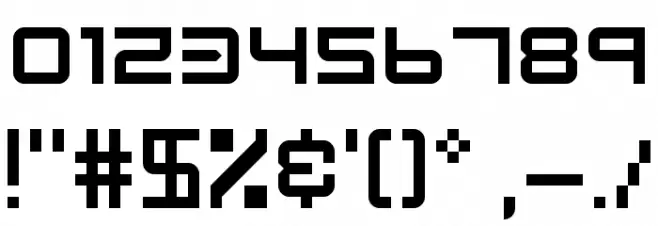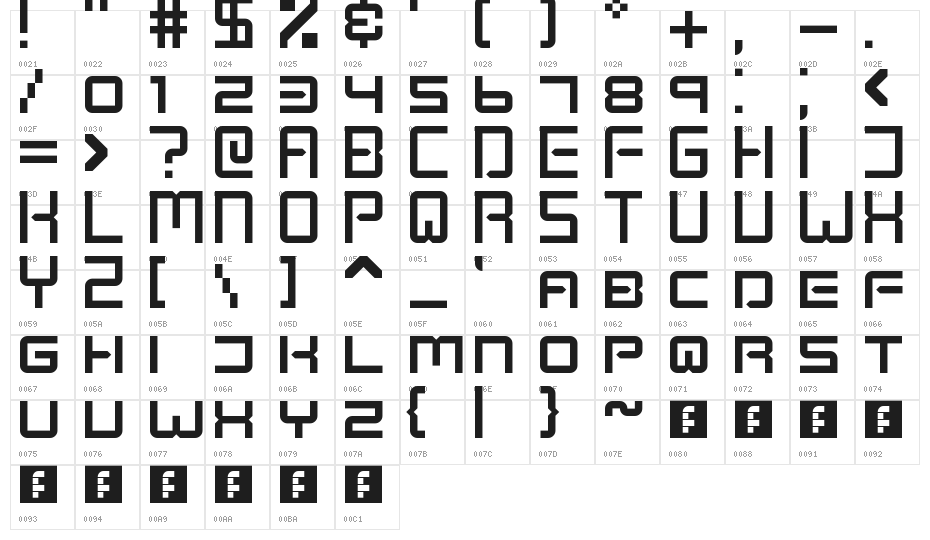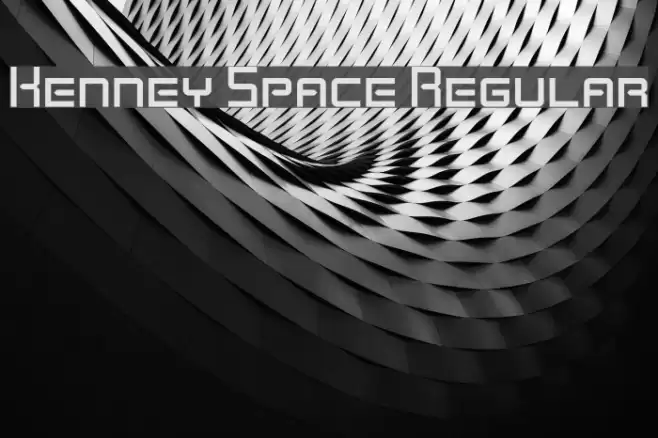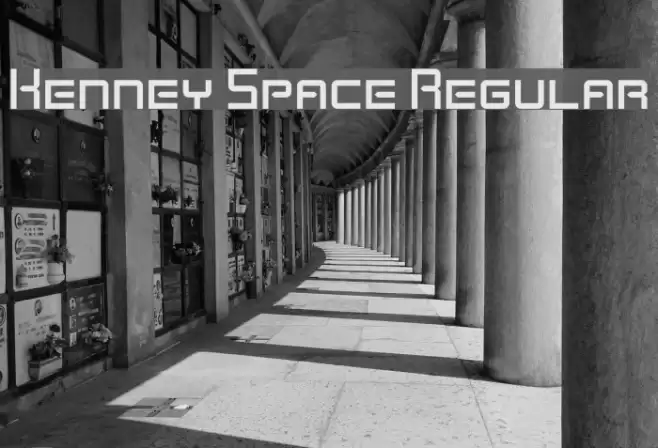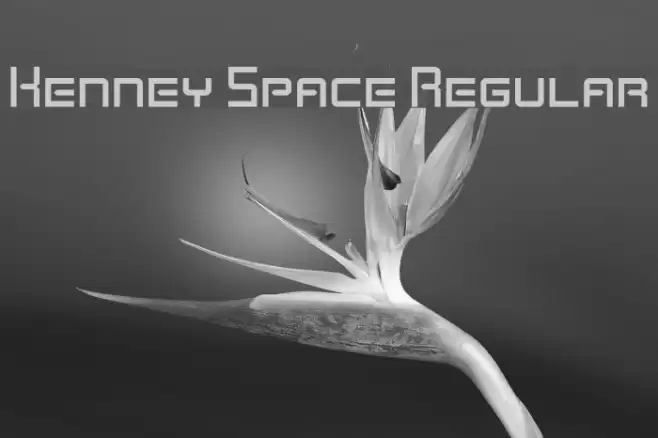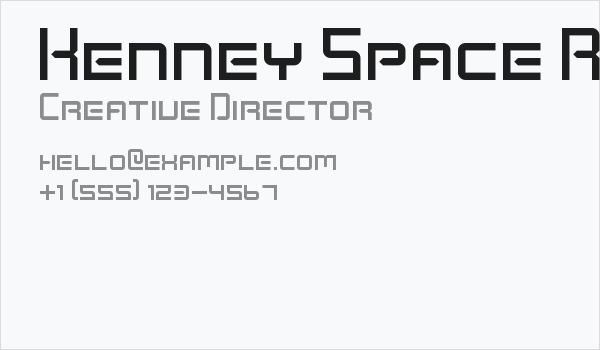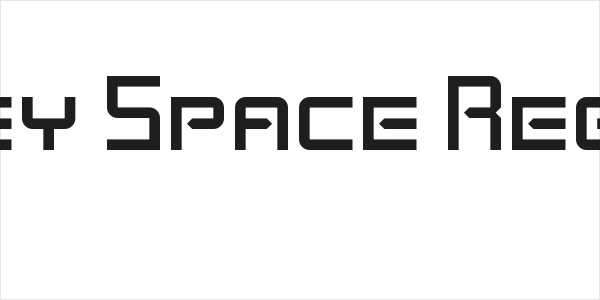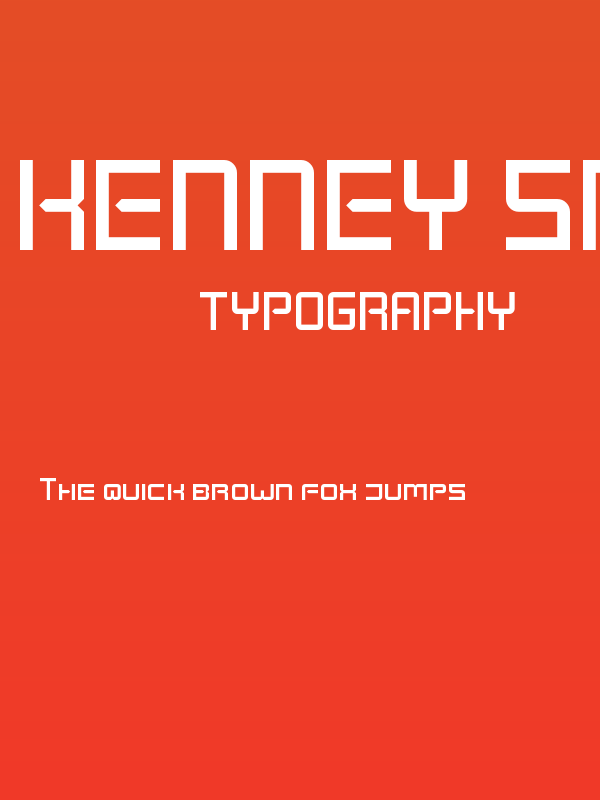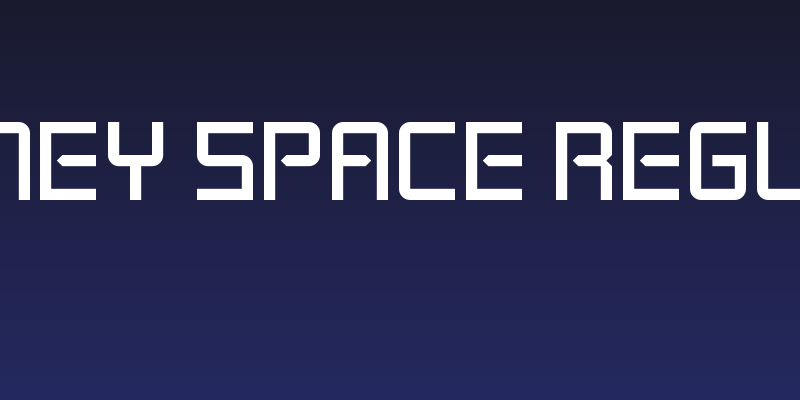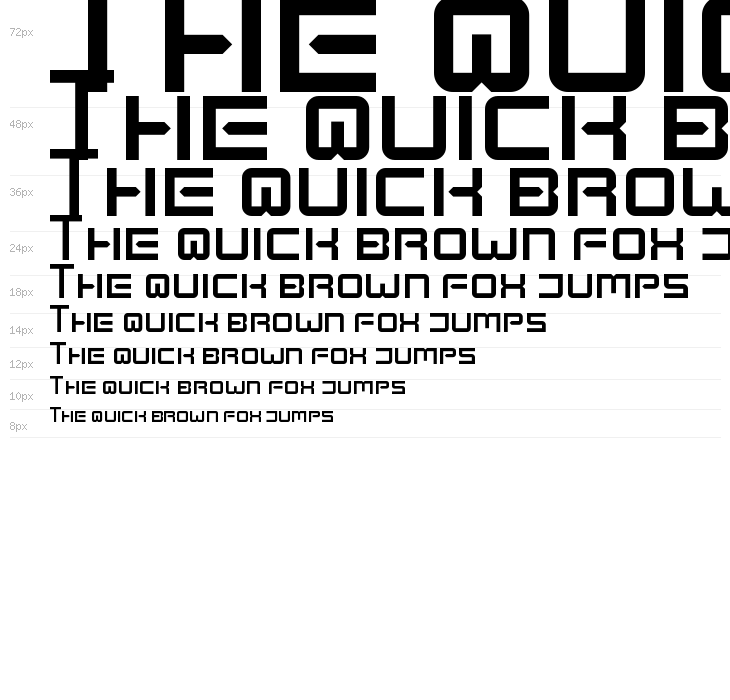
Kenney Space Regular Font
Kenney Space Regular Description
This font features a futuristic and geometric design, characterized by its blocky and angular letterforms. The characters are constructed with a consistent stroke width, giving it a uniform appearance. The uppercase and lowercase letters share similar structural elements, enhancing its cohesive look. The numerals and special characters maintain the same geometric style, making it suitable for digital and sci-fi themed projects. The font's clean lines and modern aesthetic make it versatile for various design applications.